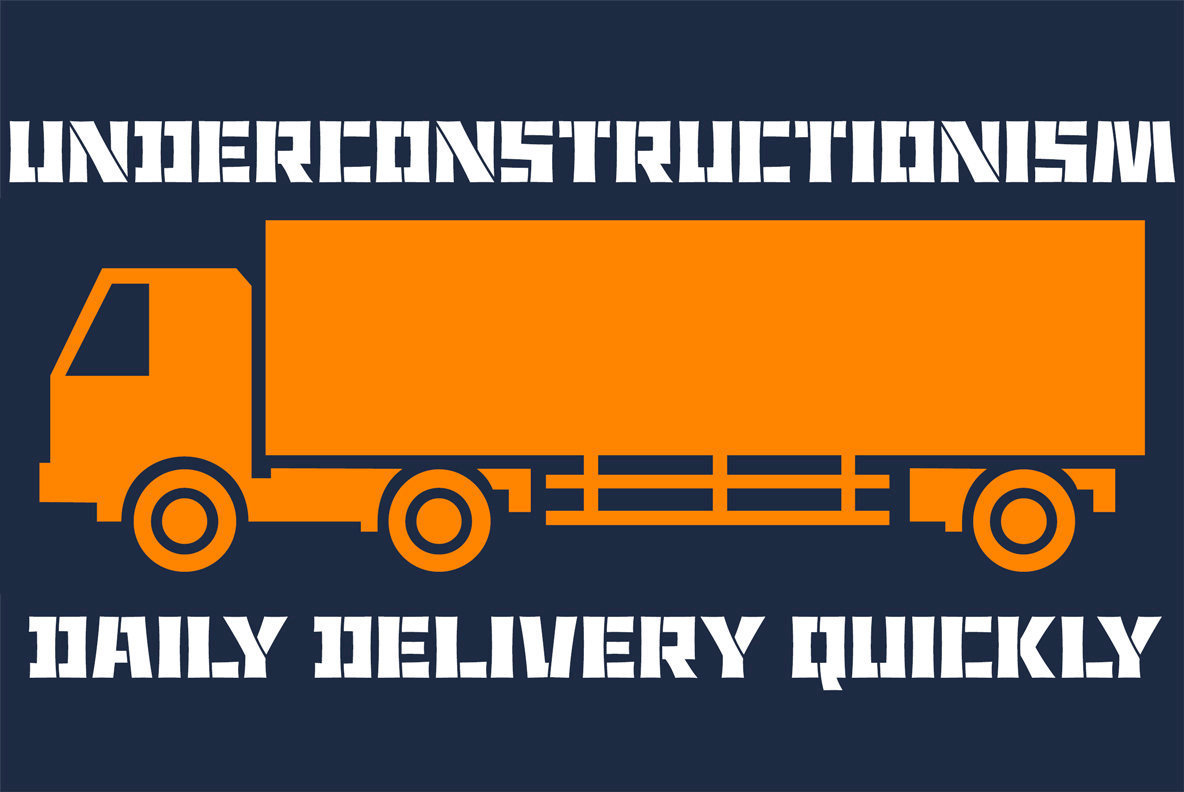
Underconstructionism Font
Underconstructionism Font is perfect for architectural deconstruction projects, experimental design studios, avant-garde art exhibitions, theoretical philosophy publications, academic critical theory materials, postmodern cultural criticism, intellectual discourse platforms, and conceptual advertising campaigns. This theoretical typeface works exceptionally well in both digital applications and print media where philosophical deconstruction and intellectual critique are fundamental design requirements.
What makes Underconstructionism Font so exciting is its radical interpretation of deconstructionist philosophy and anti-foundational theory through deliberately fragmented letterforms that challenge conventional typographic assumptions and embody the same critical questioning of established structures that defines postmodern intellectual discourse. The font features deconstructed characters with anti-structural proportions, fragmented curves, and deliberately unstable details that communicate intellectual rebellion, theoretical sophistication, and the profound questioning of assumed truths that characterizes serious philosophical and cultural criticism. Its radical personality and academic heritage make it ideal for intellectual institutions seeking to establish critical authority while appealing to scholars who engage with the most challenging and transformative theoretical frameworks.
The Underconstructionism Font family includes multiple stylistic variations with different deconstruction intensities, along with fragmented alternates and theoretical ornamental elements. Each style maintains the typeface's critical character while offering comprehensive character sets including deconstructed numerals, anti-foundational punctuation marks, and special symbols designed to enhance intellectual communications and theoretical branding efforts across various academic contexts.
This extraordinary typeface represents the perfect fusion of deconstructionist theory and contemporary typography for academic and cultural institutions. Whether you're developing critical theory program identities, creating postmodern art exhibition materials, or designing philosophical conference campaigns, Underconstructionism Font Free Download provides the theoretical sophistication and versatility needed to engage intellectually rigorous audiences. The font's critical appeal makes it particularly effective for philosophy departments, contemporary art institutions, critical theory journals, and organizations challenging conventional assumptions through serious intellectual inquiry.
The meticulously crafted deconstructed details and optimized theoretical performance in Underconstructionism Font ensure both intellectual authenticity and clear communication across all academic applications. Its radical presence makes it perfect for critical branding, theoretical marketing materials, and intellectual communications where its full deconstructionist character can create lasting engagement with audiences seeking to question, analyze, and ultimately transform the fundamental assumptions underlying contemporary culture and thought.